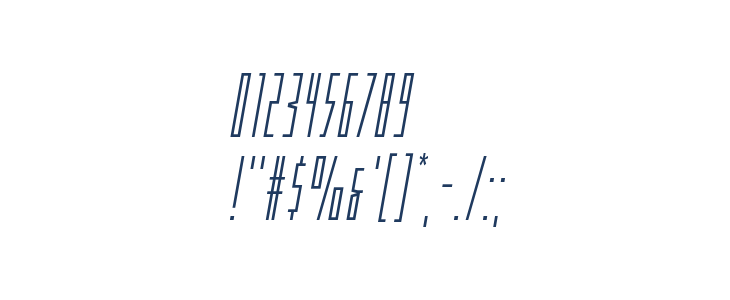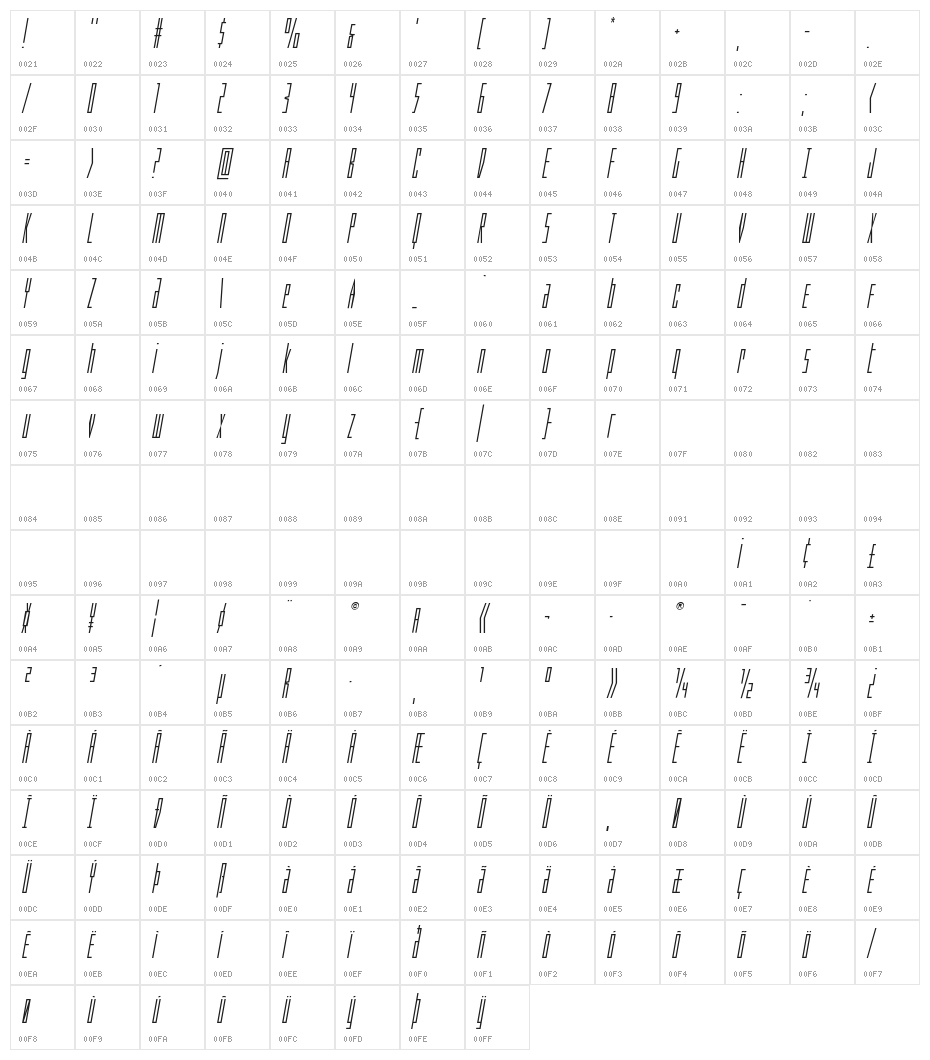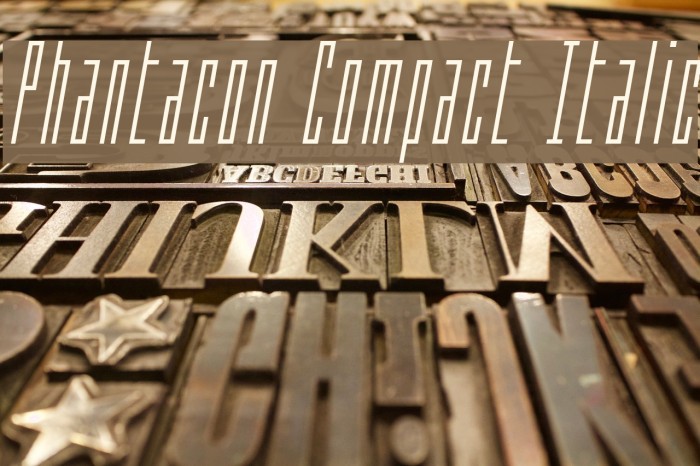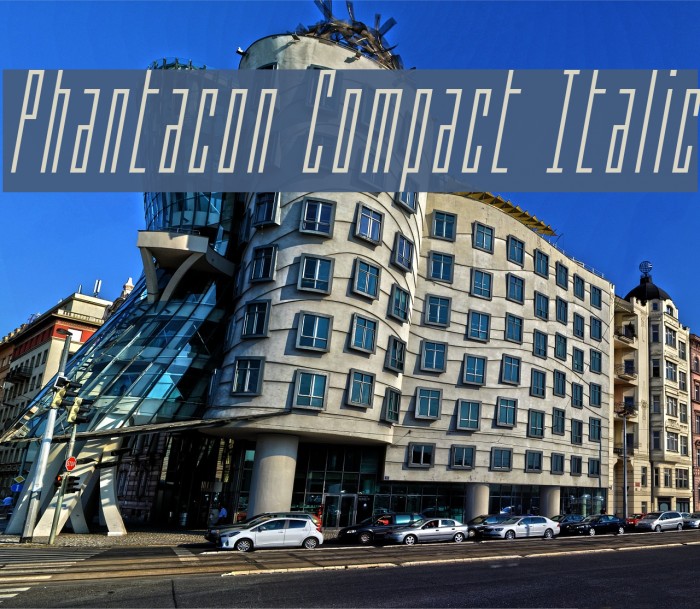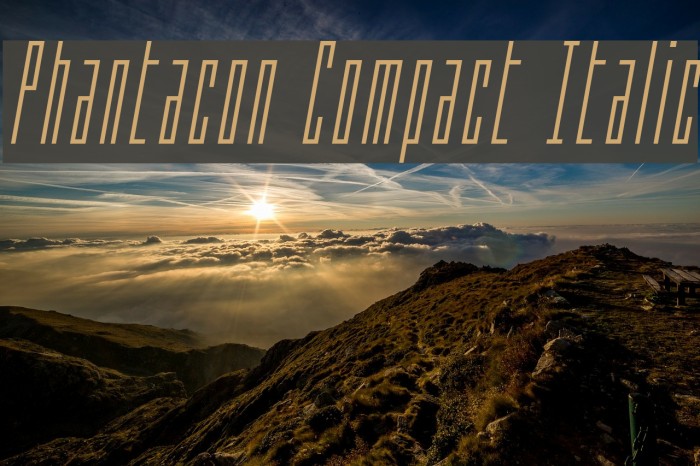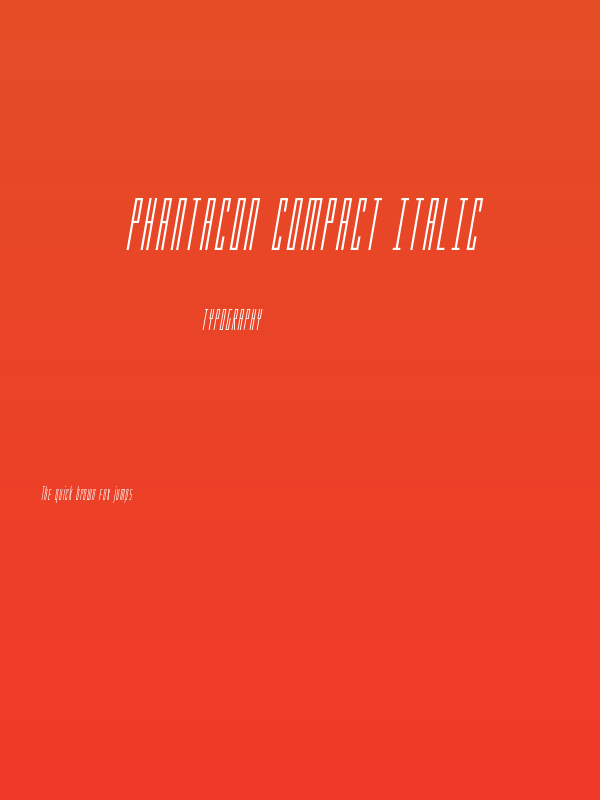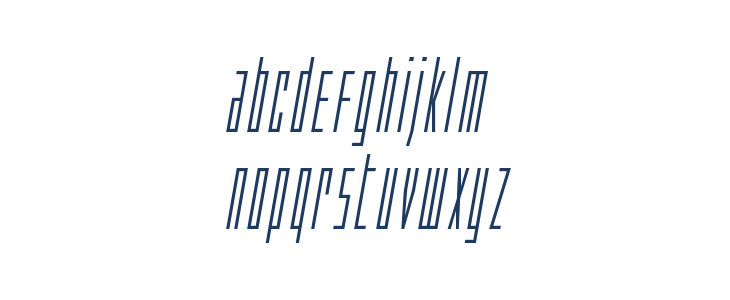
Phantacon Compact Italic Font
Phantacon Compact Italic Description
This font features a sleek, modern design with a distinct italic slant, giving it a dynamic and forward-moving appearance. The characters are tall and narrow, emphasizing verticality and creating a compact look. The strokes are consistent in width, contributing to a uniform and clean aesthetic. The uppercase and lowercase letters maintain a cohesive style, while the numerals and special characters integrate seamlessly with the overall design. The font's sharp angles and precise lines convey a sense of sophistication and contemporary elegance.